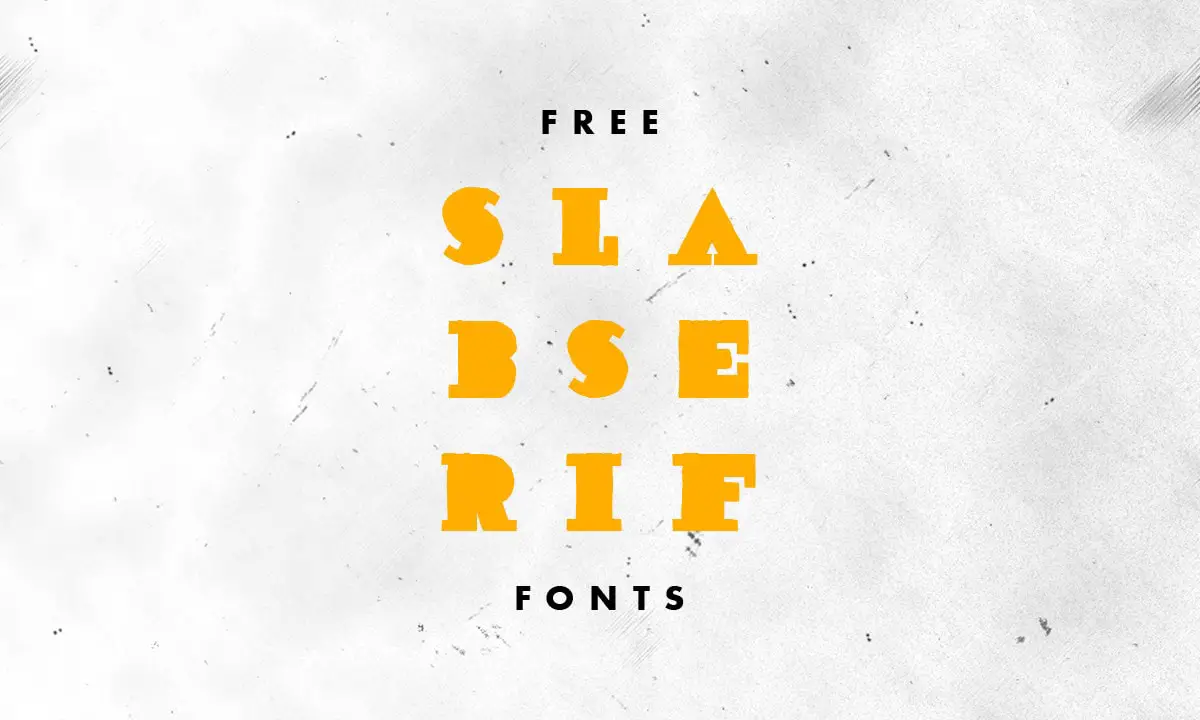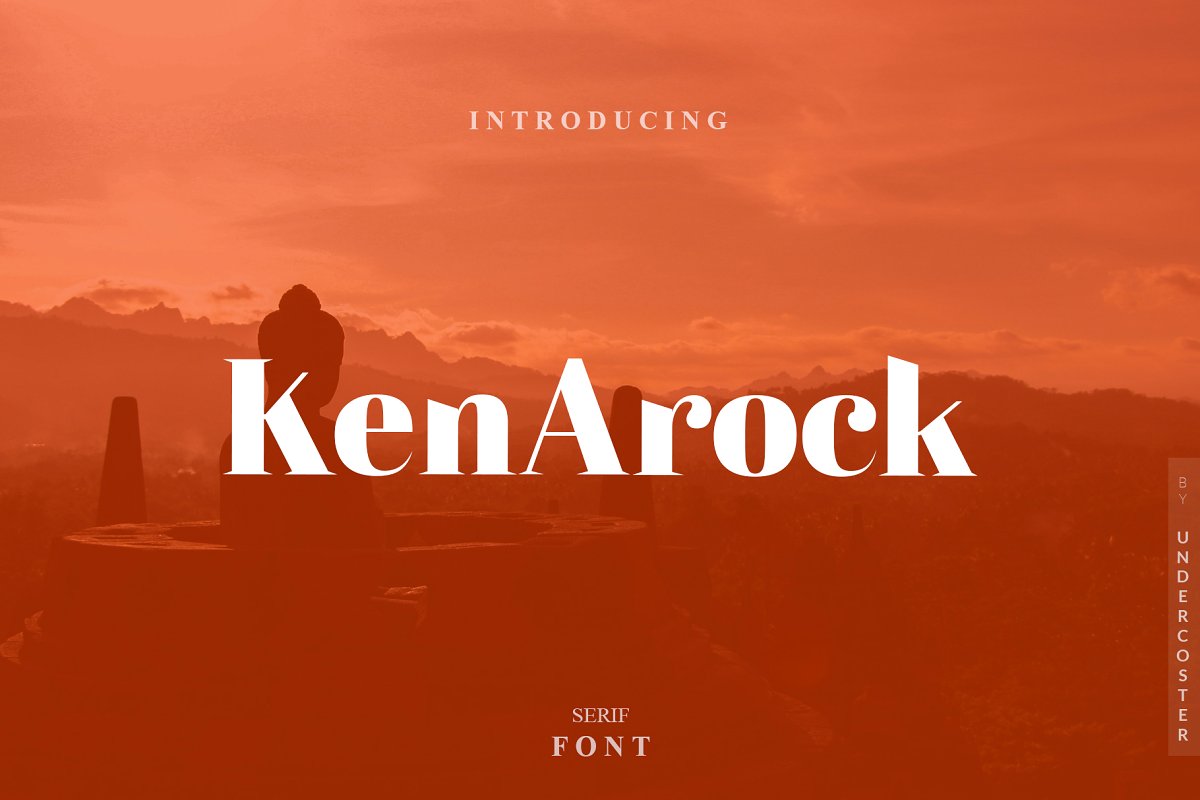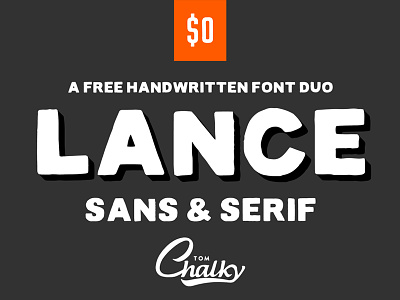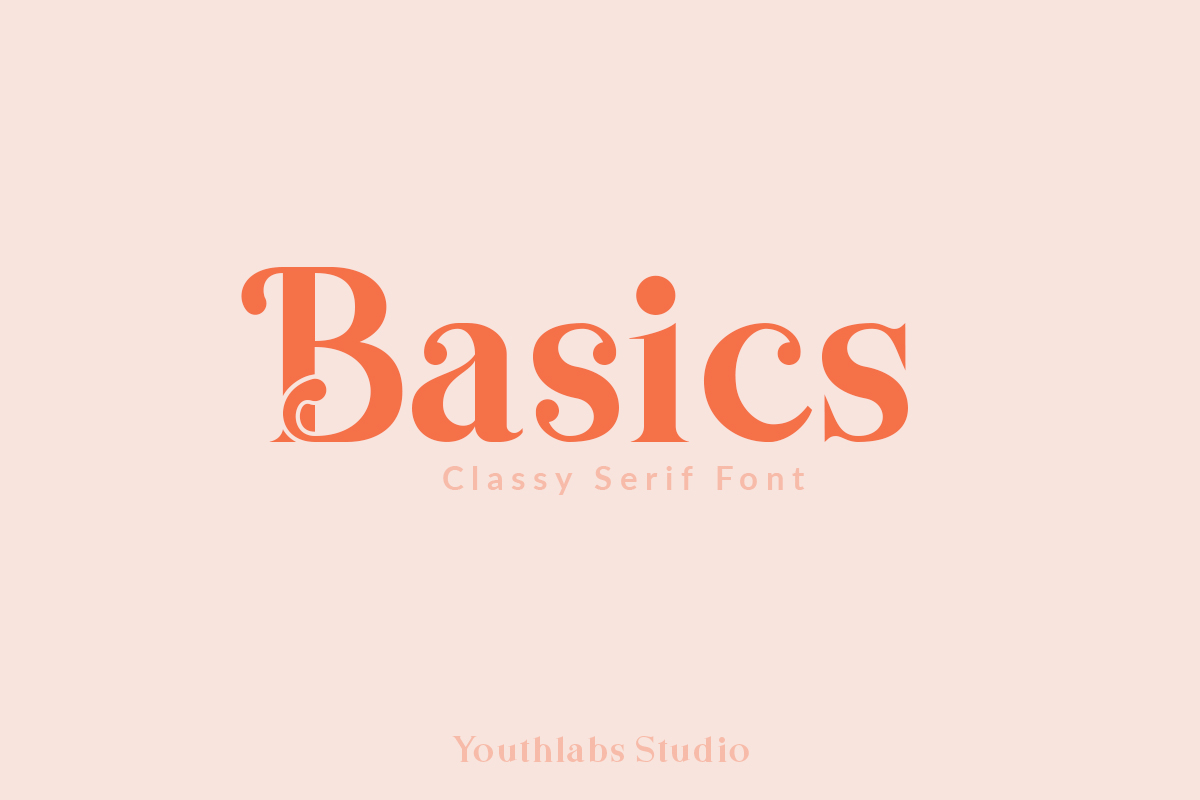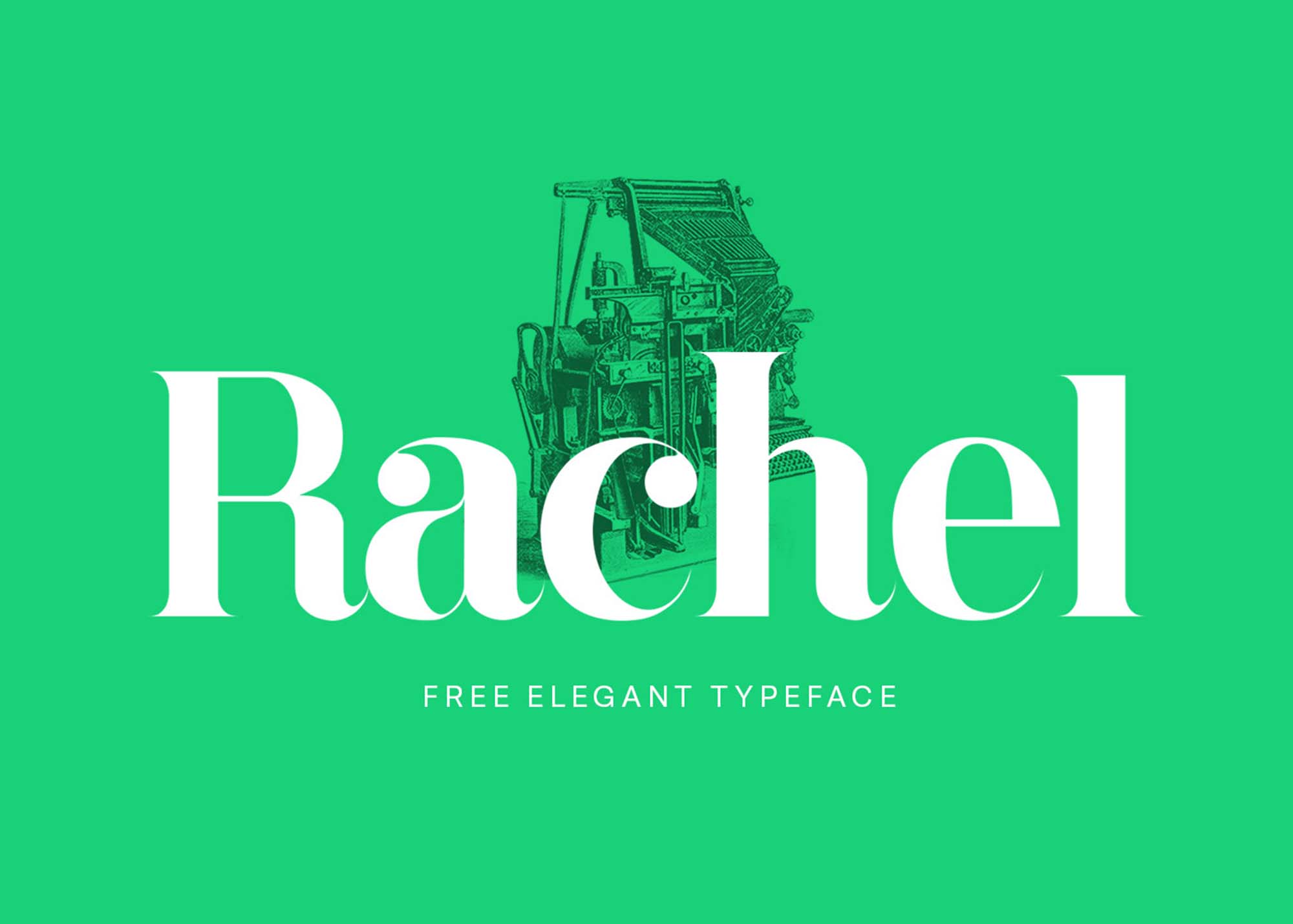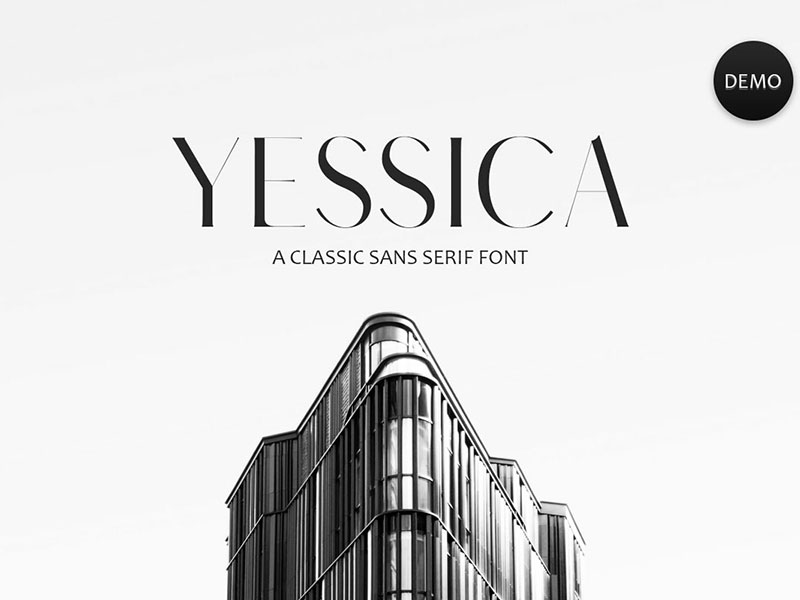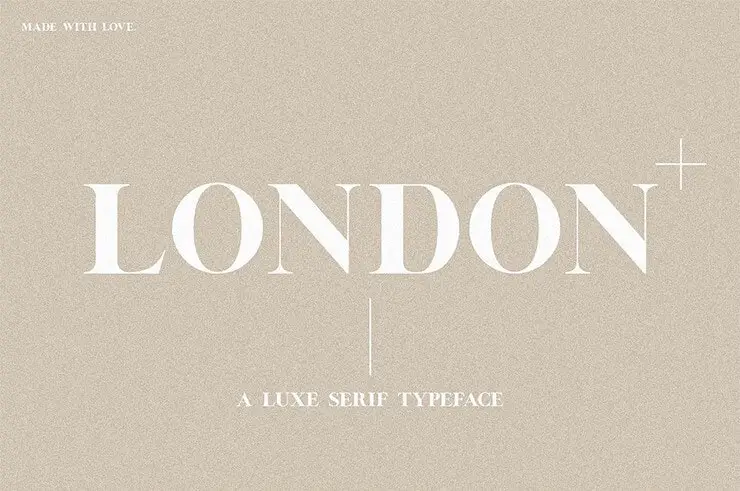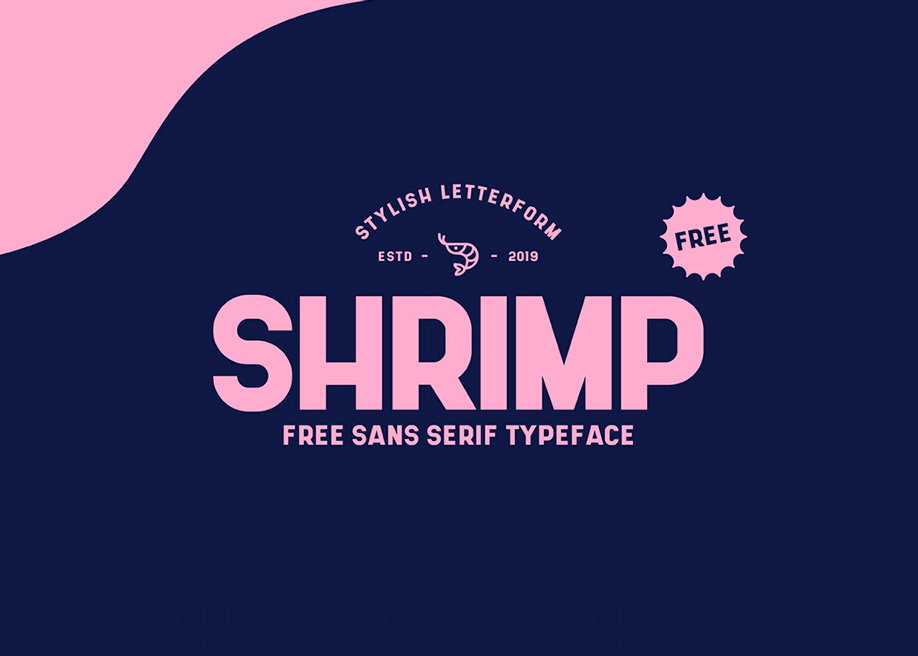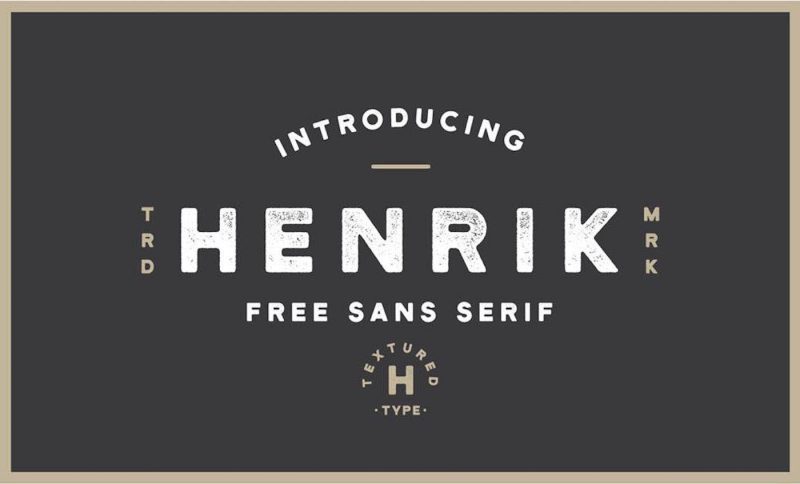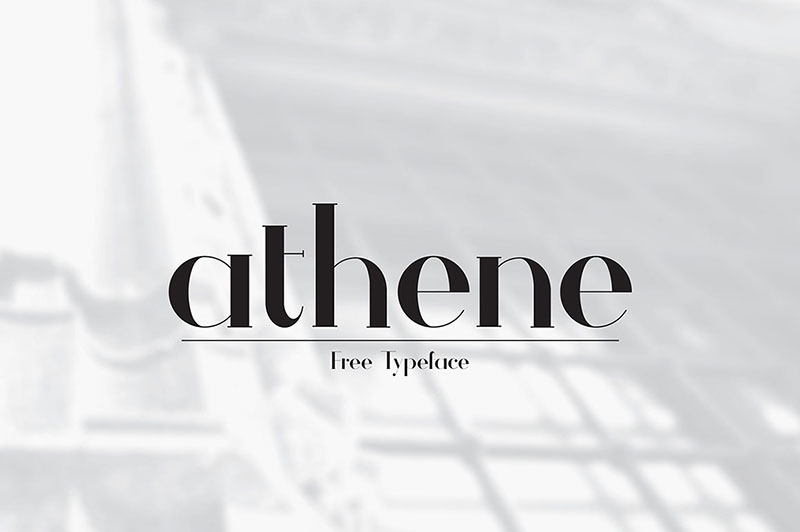
The criteria I had in order to come up with this list. This elegant sans-serif font designed by Milena Brandao.
Delaproza Font is free modern serif font.
Free serif fonts for commercial use. Free Fonts for Commercial Use. But now that you have 50 options to choose from all thats left to do is get out there and get designing. Wow look at all these sans-serif alternatives to Arial Futura Helvetica and Verdana.
Mathison Free Serif Display Font Mathison is a modern serif font you can use to design stylish headers and titles for websites posters banners and even logos. Enjoy the worlds largest collection of commercial-use fonts here at FontSpace. The style offers only uppercase characters numbers and some symbols at the moment but the designers promise to release lowercase characters additional symbols and more in the future.
Averta is a geometric sans serif family made by the award-winning designer Kostas Bartsokas. Bring your ideas to life in minutes. Download OTF offsite Z Y M m Anglecia Pro Display Mint Type 2 Styles.
Slab Serif Free for commercial use OFL. Like make logos brochures wedding compose a publication organization invitation card layouts and more. You may use Fredoka One free font for a variety of functions.
Z Y M m Alfa Slab JM Solé 1 Styles. It has a timeless structure where you can create your modern-elegant or classic design alternatives. The font is free for both personal and commercial use.
The typeface has a simple yet appealing personality. These serif fonts are typically used in newspapers because they make reading quick and easy. And here are the alternatives to Courier Garamond and Times new Roman.
Fredoka One is a semi-rounded free sans-serif font. So go ahead and find the perfect font for your design. Z Y M m Amagro Fabio Servolo 1 Styles.
Free Sans Serif Fonts. This Exclusive Font is available to download for free with our Premium License for Commercial Use. This font is a unique take on a vintage serif featuring a ton of cool characters that will set your designs apart.
Free for personal desktop commercial use View License Details Understock is a free vintage serif font from 1871 Project. The font is free to use with your personal and commercial projects. It includes 3 styles.
These fonts are free for commercial use please double-check the license before using. Sans serif is a contemporary typeface without serifs. Sans serif fonts are fonts without the embellishmentsor feetyoud find in a serif font hence the sans in the title.
Z Y M m Alice Cyreal 1 Styles. This is a curated list of some of the best freely available Fonts out there. Botera Free Serif Stencil Font.
Milk is a bold sans serif font that commands attention. These fonts are easy to read crisp and clean and ideal for flow text. Thats right zero license fees.